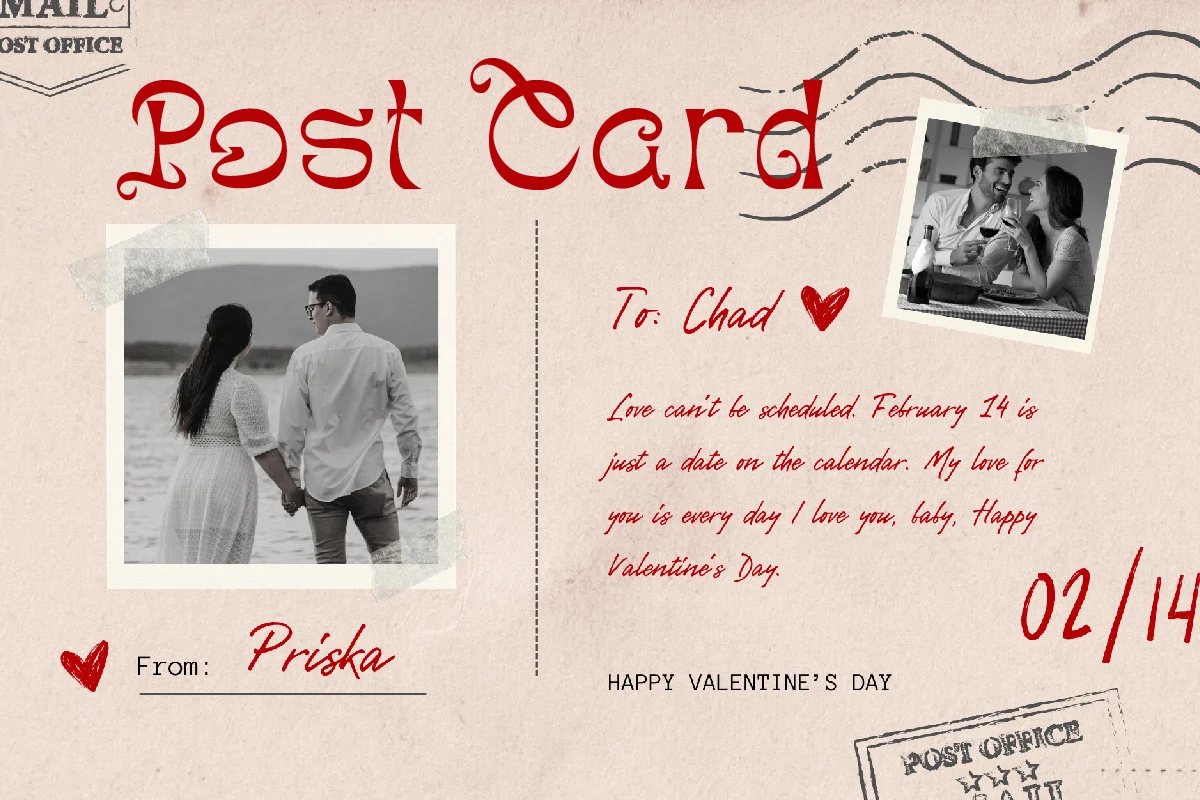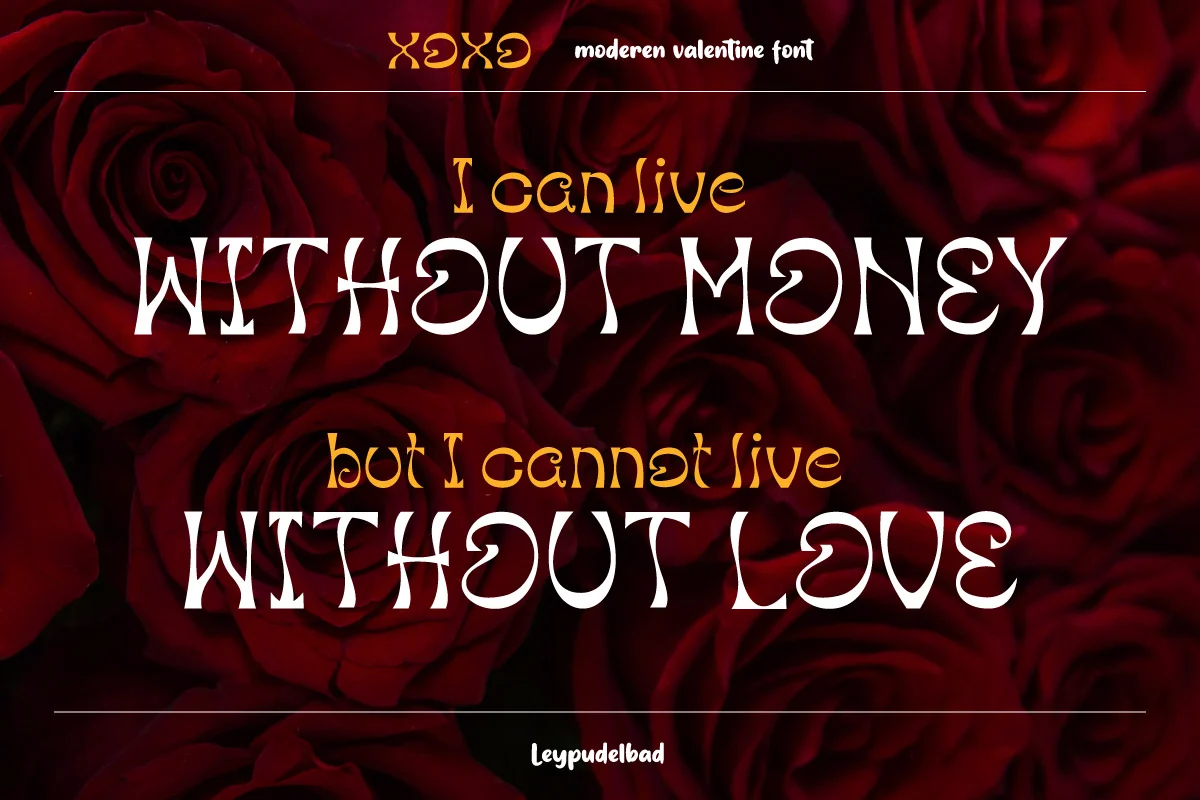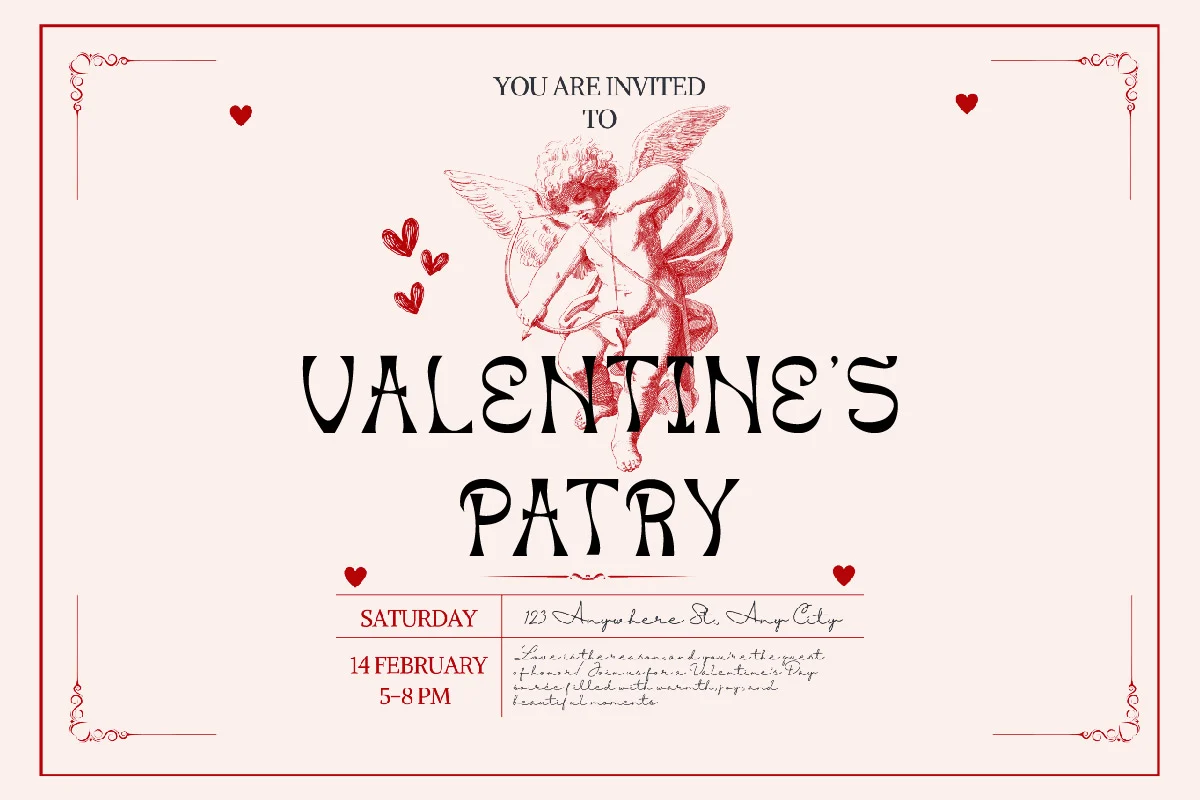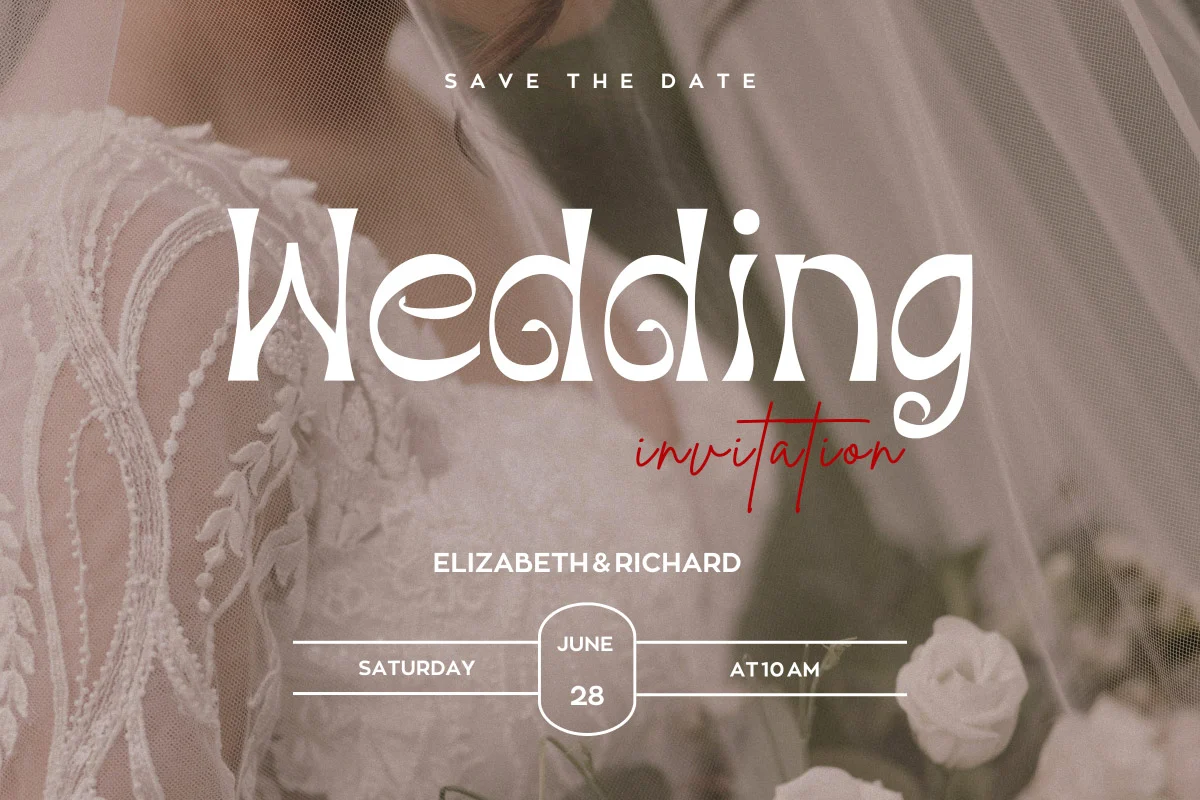
XOXO – Playful & Cute Valentine Font
Celebrate love with XOXO, a charming and romantic font designed to add a sweet and joyful touch to your Valentine’s projects. With its cute and playful design, XOXO is perfect for love letters, Valentine’s cards, wedding invitations, social media posts, and festive promotions. The soft curves and elegant strokes create a warm and heartfelt feel, making it ideal for any romantic and joyful design. Whether you're creating special discounts, love-themed branding, or charming packaging, XOXO will enhance your design with aesthetic appeal and readability.